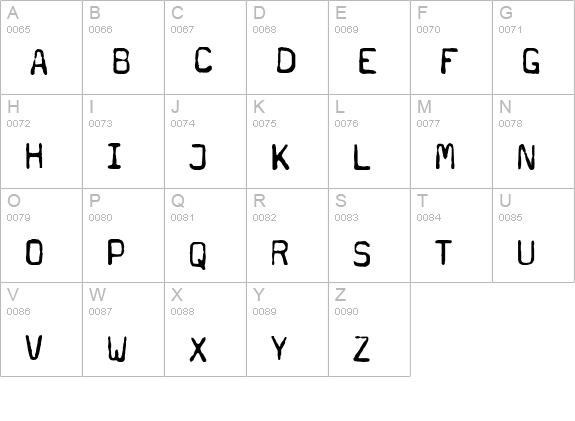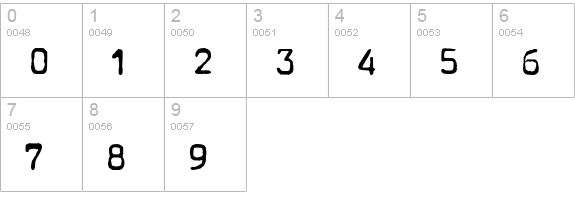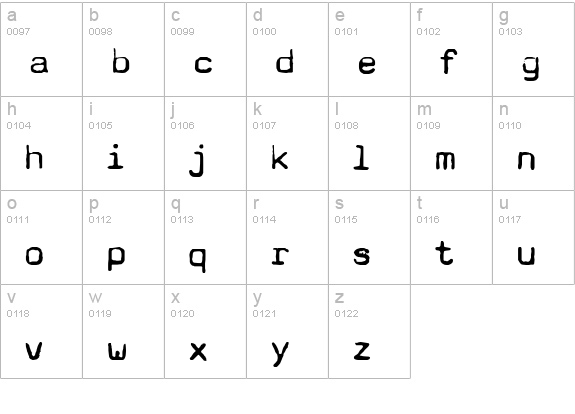
Typewriter - a602 (dead postman 2004) Font Details
Introducing Typewriter - a602 (dead postman 2004) font, a unique and captivating typeface that brings a touch of nostalgia to your designs. This font beautifully captures the essence of vintage typewriters, evoking a sense of authenticity and charm. With its classic monospaced characters and imperfectly inked edges, Typewriter - a602 (dead postman 2004) font adds a timeless appeal to any project. Whether you're creating a retro-inspired poster, designing a vintage-themed website, or crafting an eye-catching logo, this font will effortlessly transport your audience back in time. What sets Typewriter - a602 (dead postman 2004) font apart is its versatility. It seamlessly blends in both digital and print mediums, making it a perfect choice for a wide range of projects. From crafting striking headlines to adding a touch of uniqueness to your body text, this font is sure to make your designs stand out. But what makes Typewriter - a602 (dead postman 2004) font even more appealing is the fact that it is freely available to download at FontsMarket.com. This means you can instantly enhance your creative endeavors without any cost. The accessibility and convenience of this font make it a must-have resource for designers and typewriter enthusiasts alike. So, whether you're a vintage aficionado or simply looking to add a touch of nostalgia to your designs, Typewriter - a602 (dead postman 2004) font is the perfect choice. Download it for free at FontsMarket.com and unlock a world of creative possibilities. Let this font transport you to a bygone era and bring an unmistakable charm to your projects.